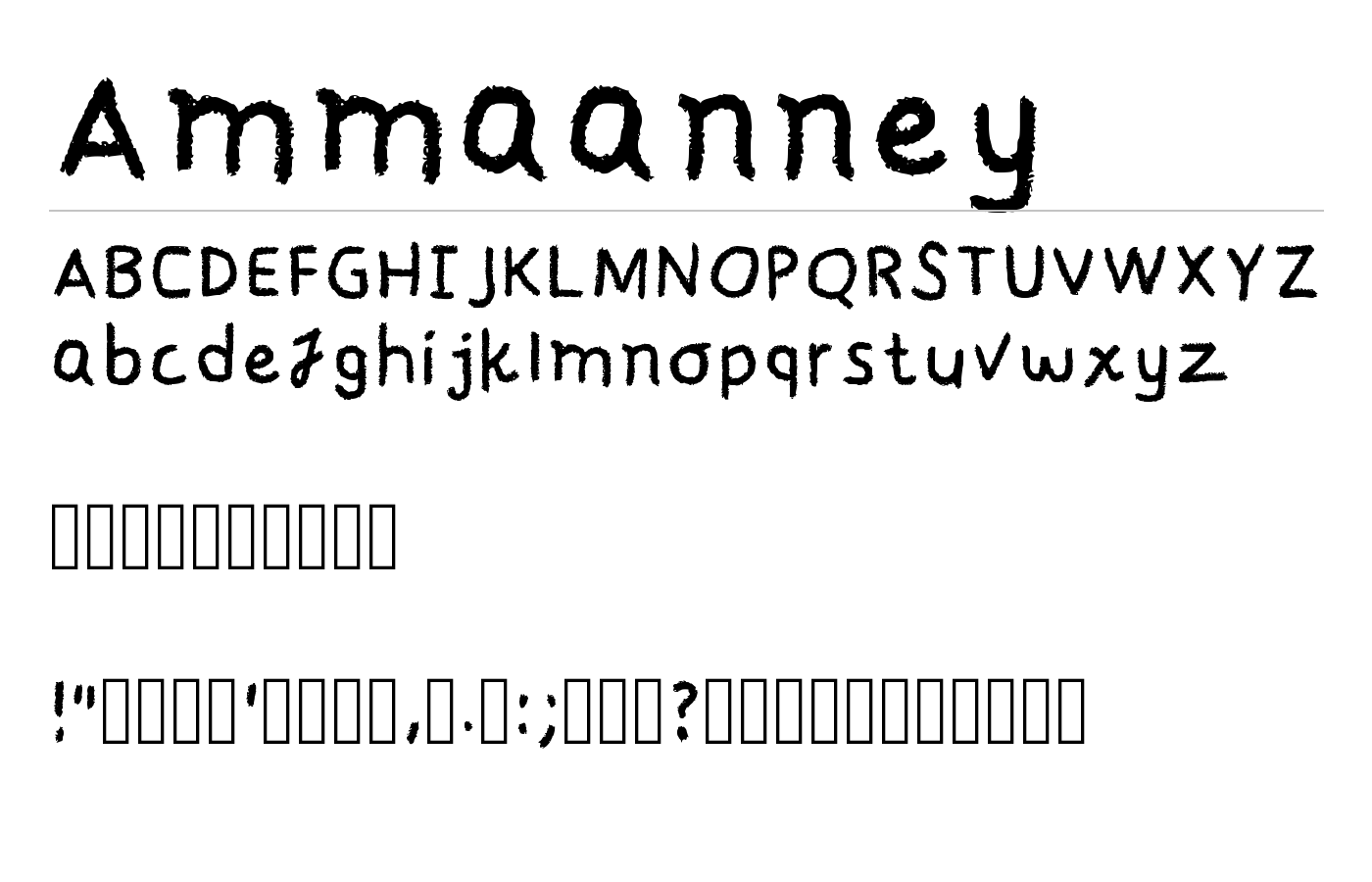
Ammaanney is a playful and informal sans serif font with a hand-drawn, textured appearance that gives it a lively and organic feel. Its irregular stroke edges and quirky letterforms make it a great choice for creative projects, children’s designs, or casual branding where a friendly and approachable vibe is desired. This font works well in headlines, logos, and any setting where a unique, handcrafted style can add character and warmth.
Ammaanney Font
About Ammaanney Font